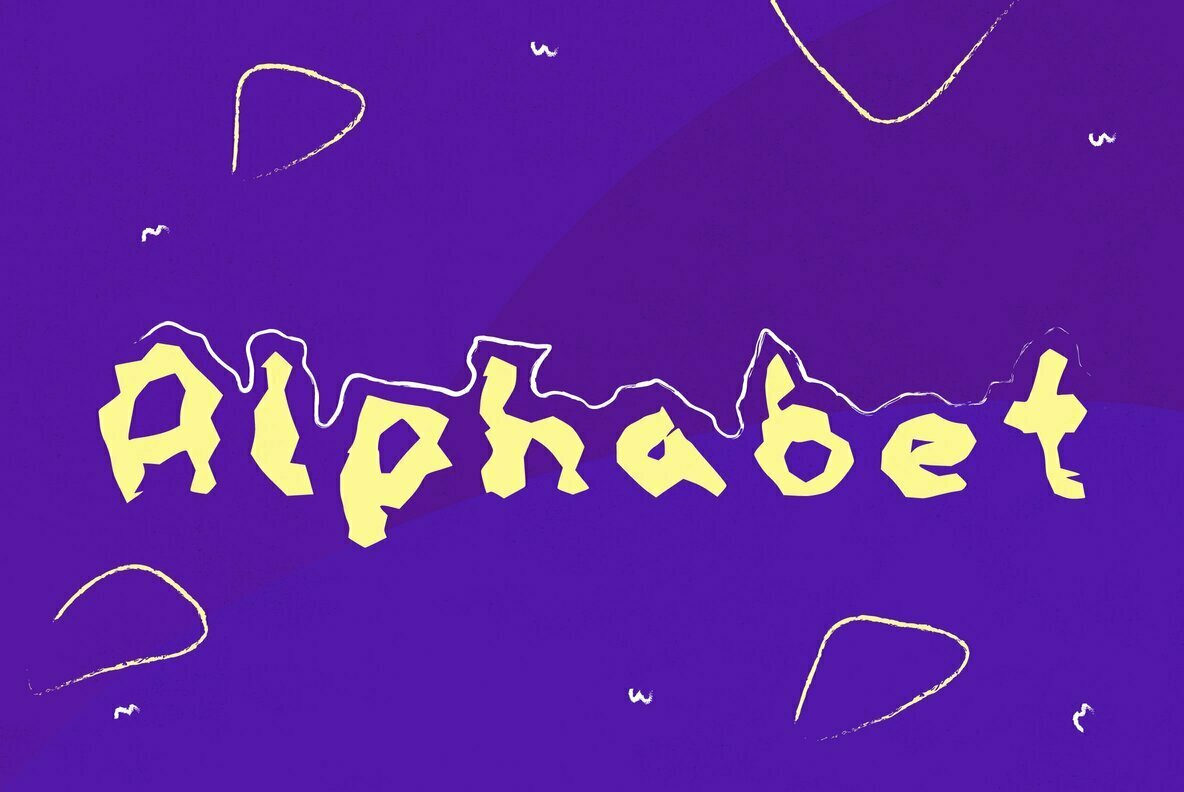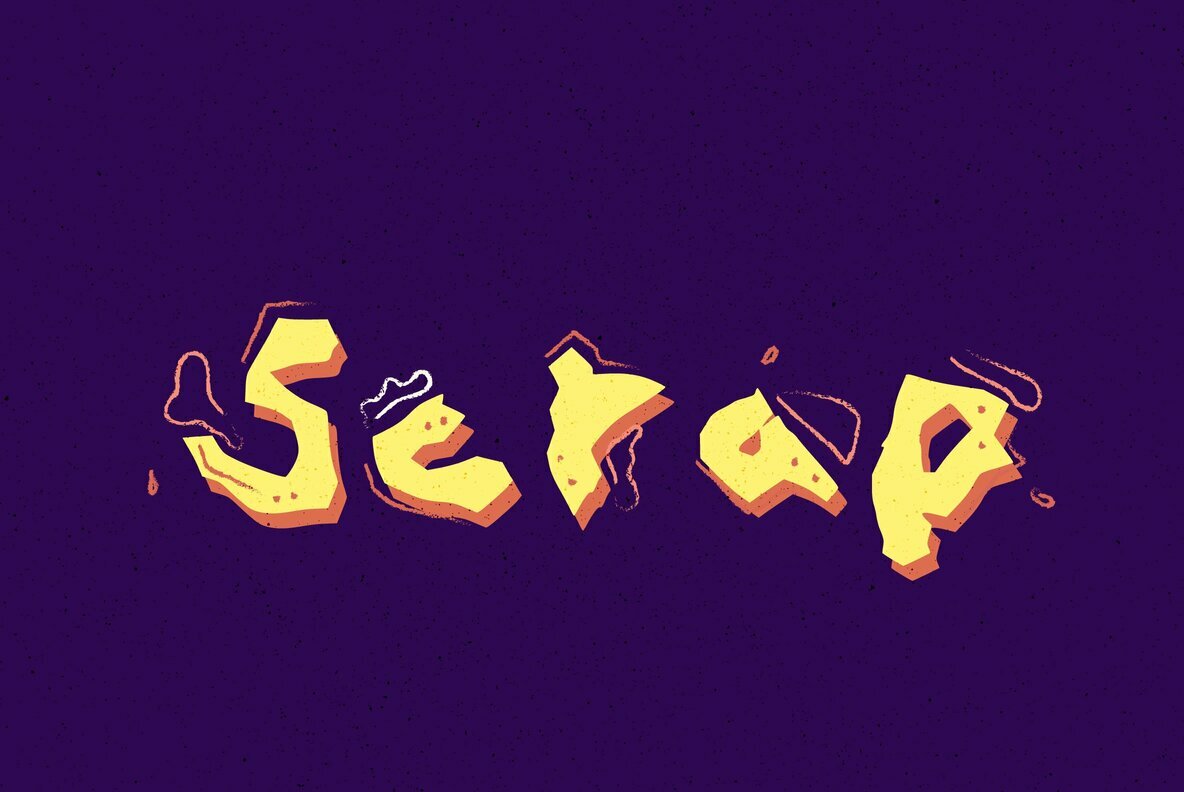
Scrap 1
Writer's block, creativity all dried up? This font has the same problem! Each letter looks like a piece of paper that's been screwed up and thrown away. Scrap has the effect something you might unfold straight out of a rubbish bin. Cool scrappy rough font.